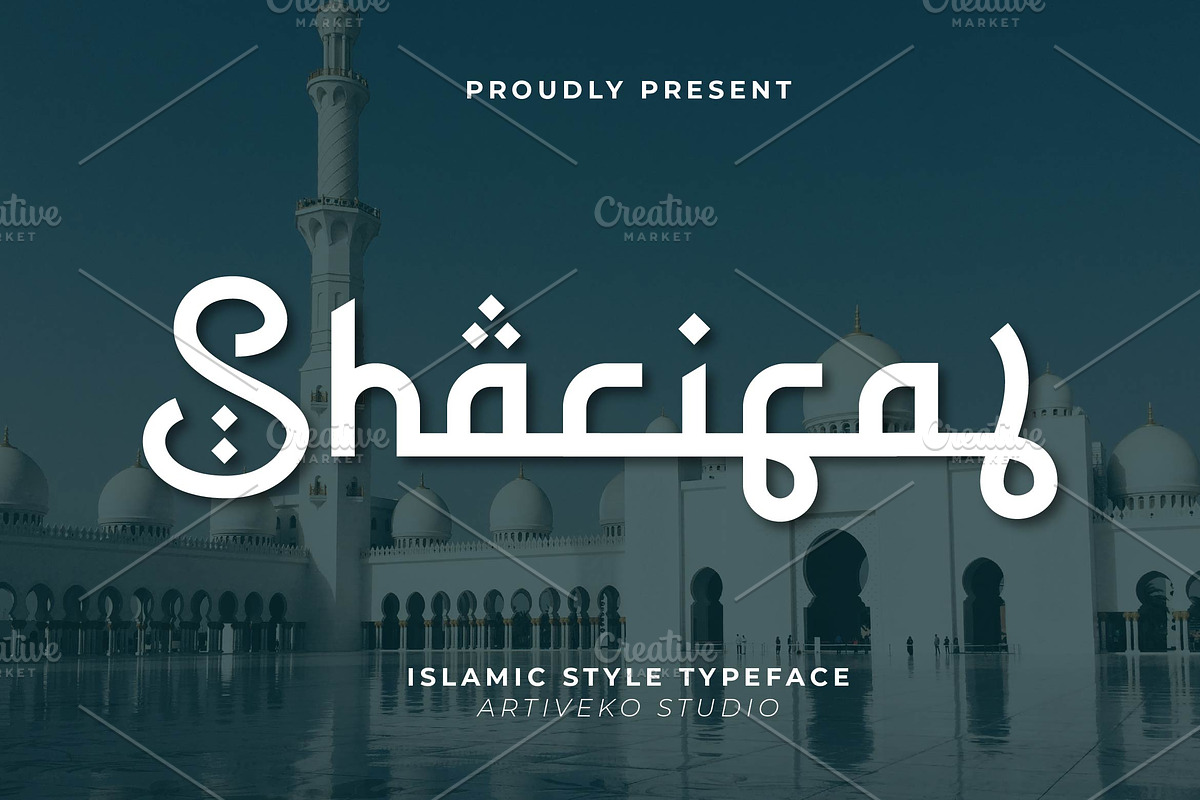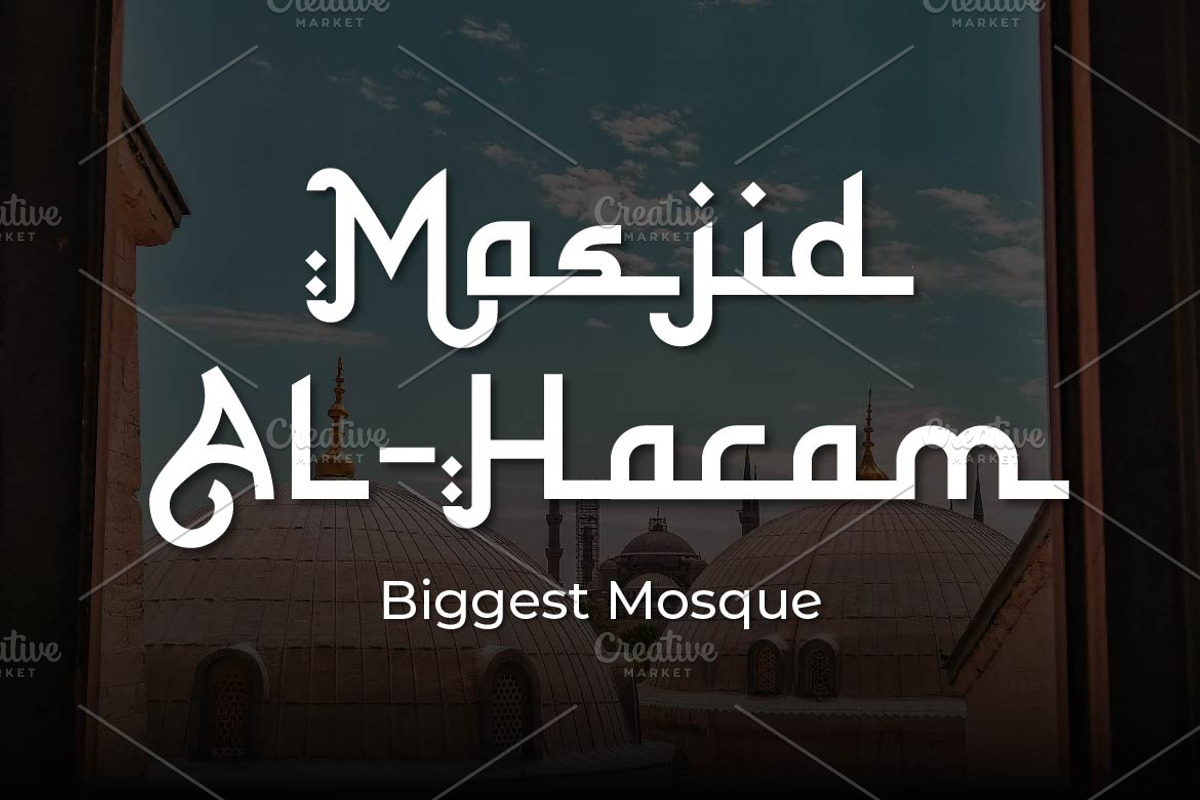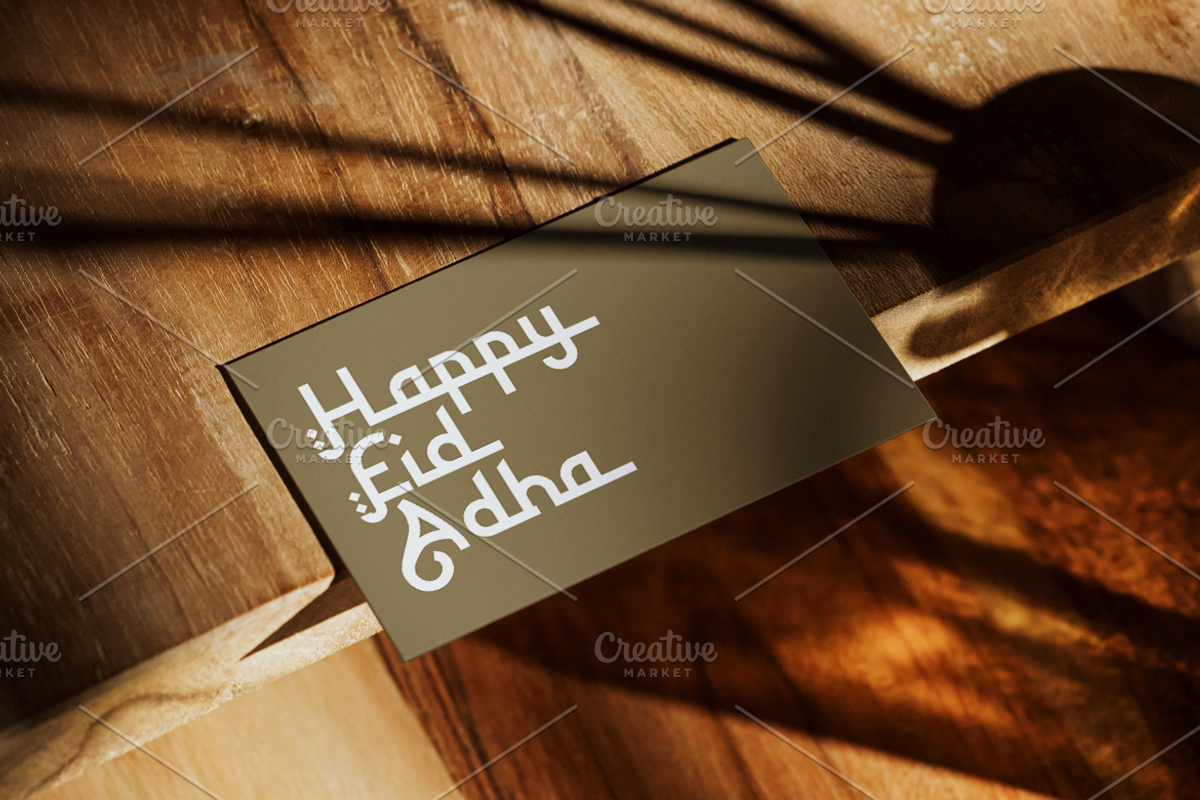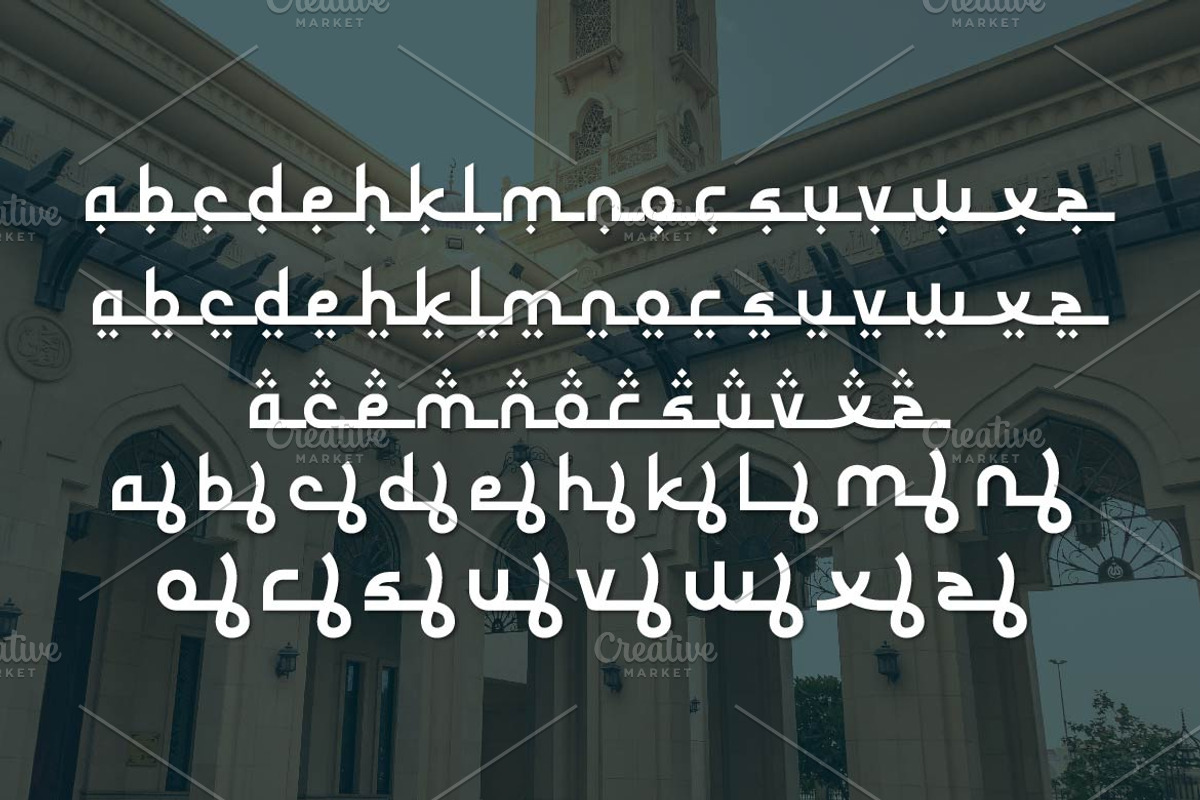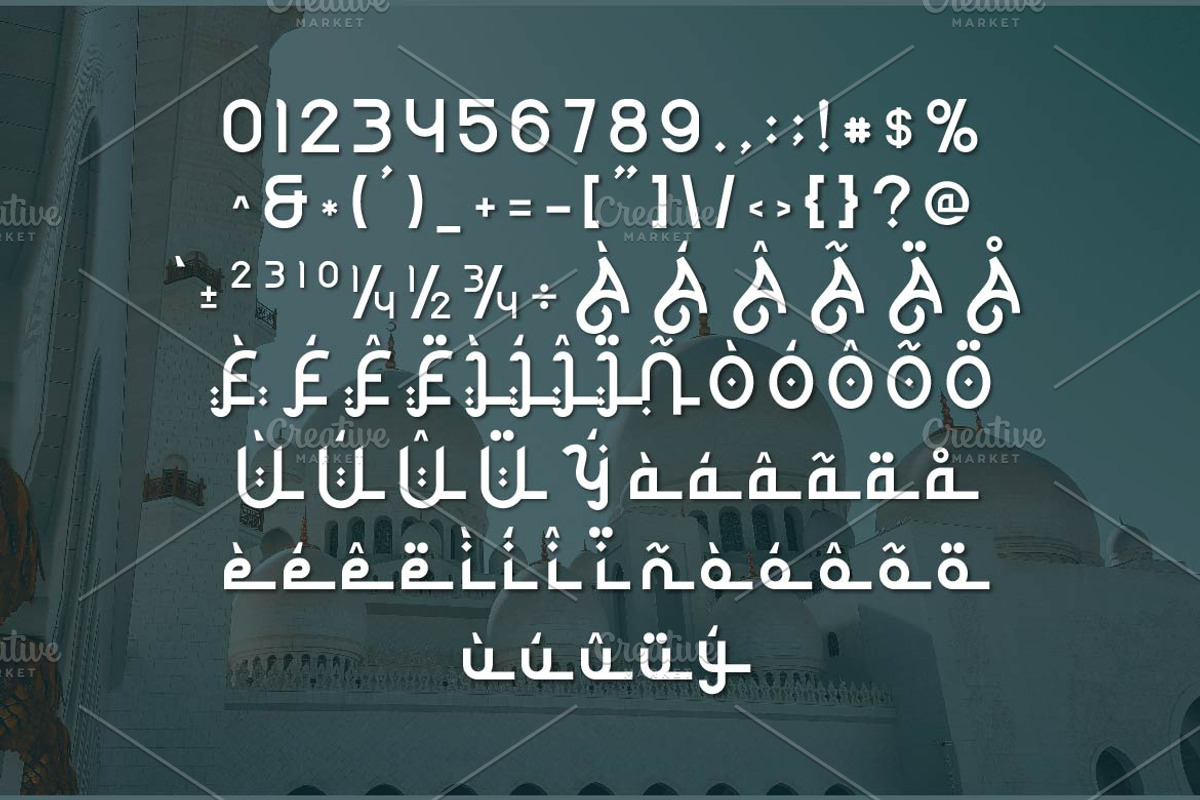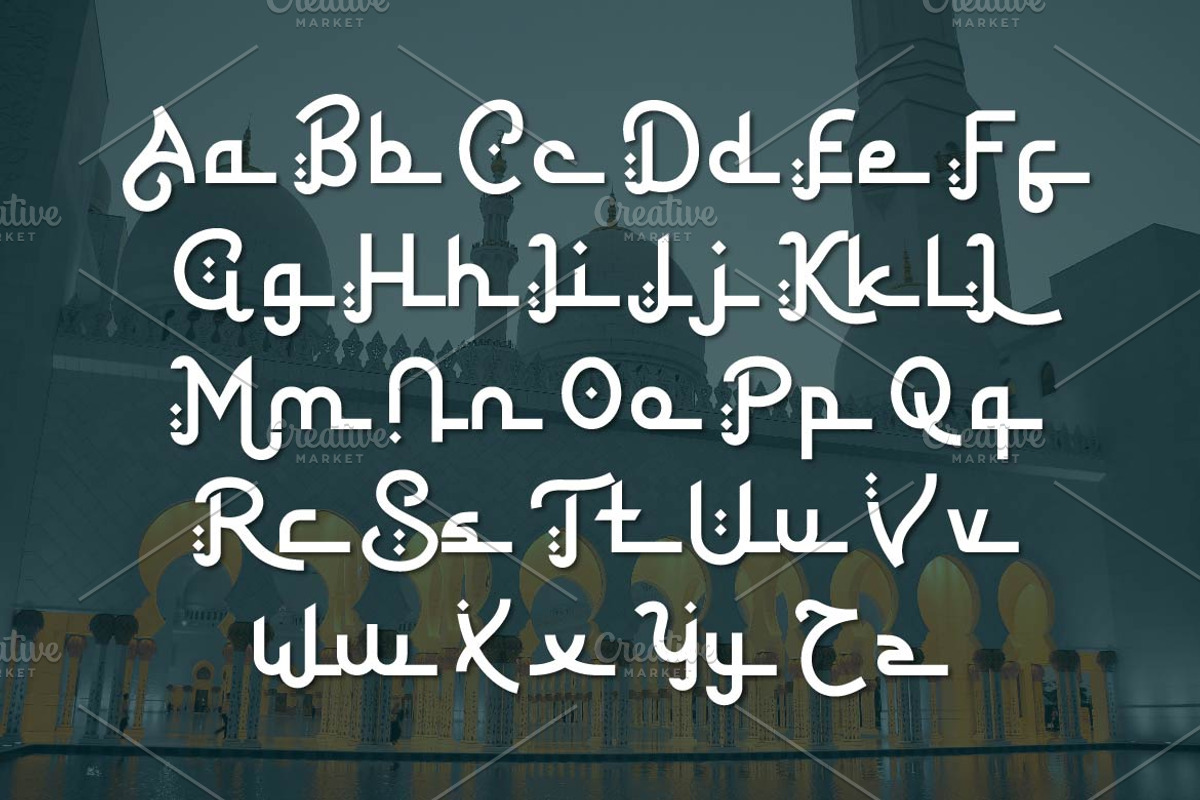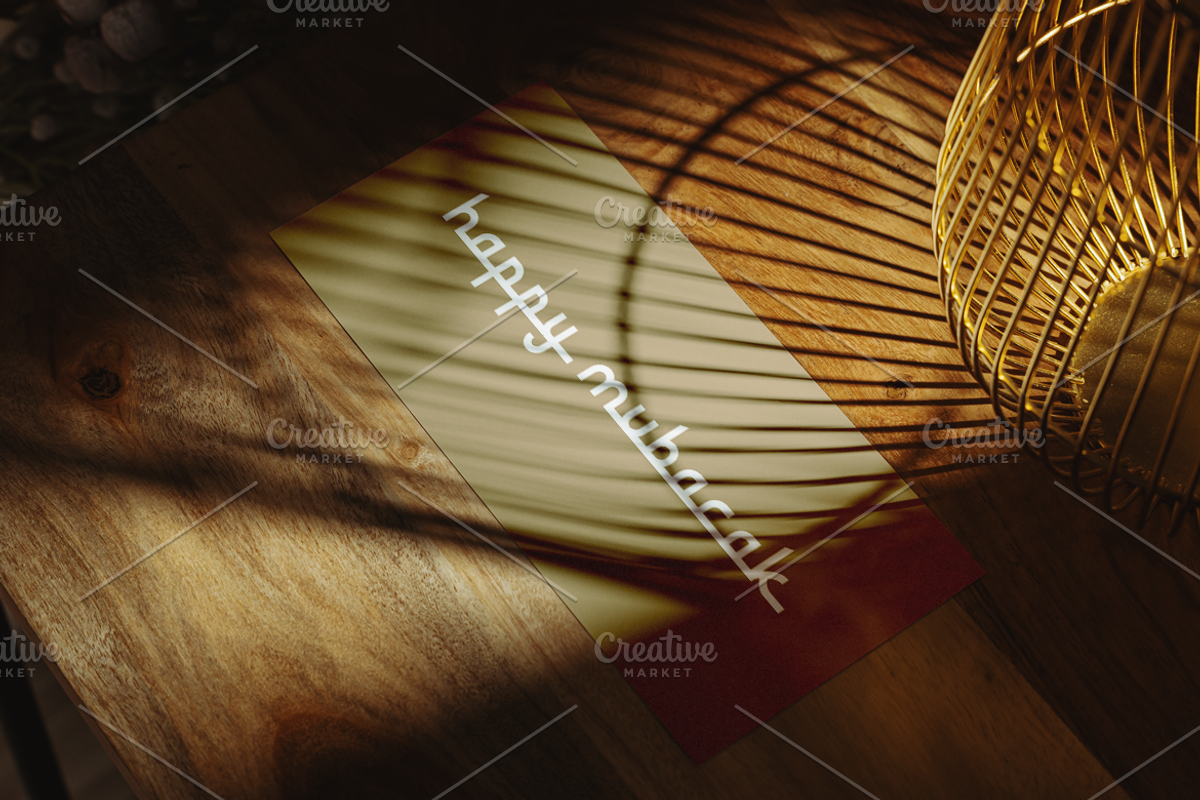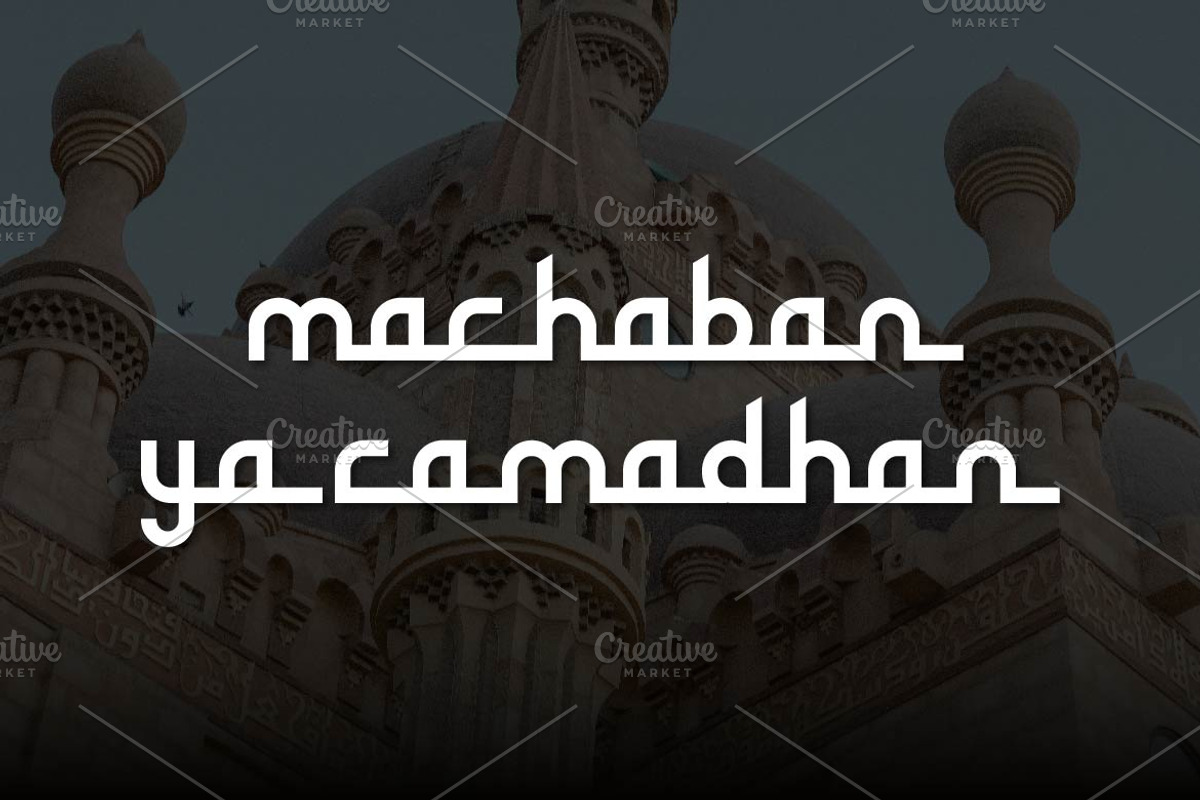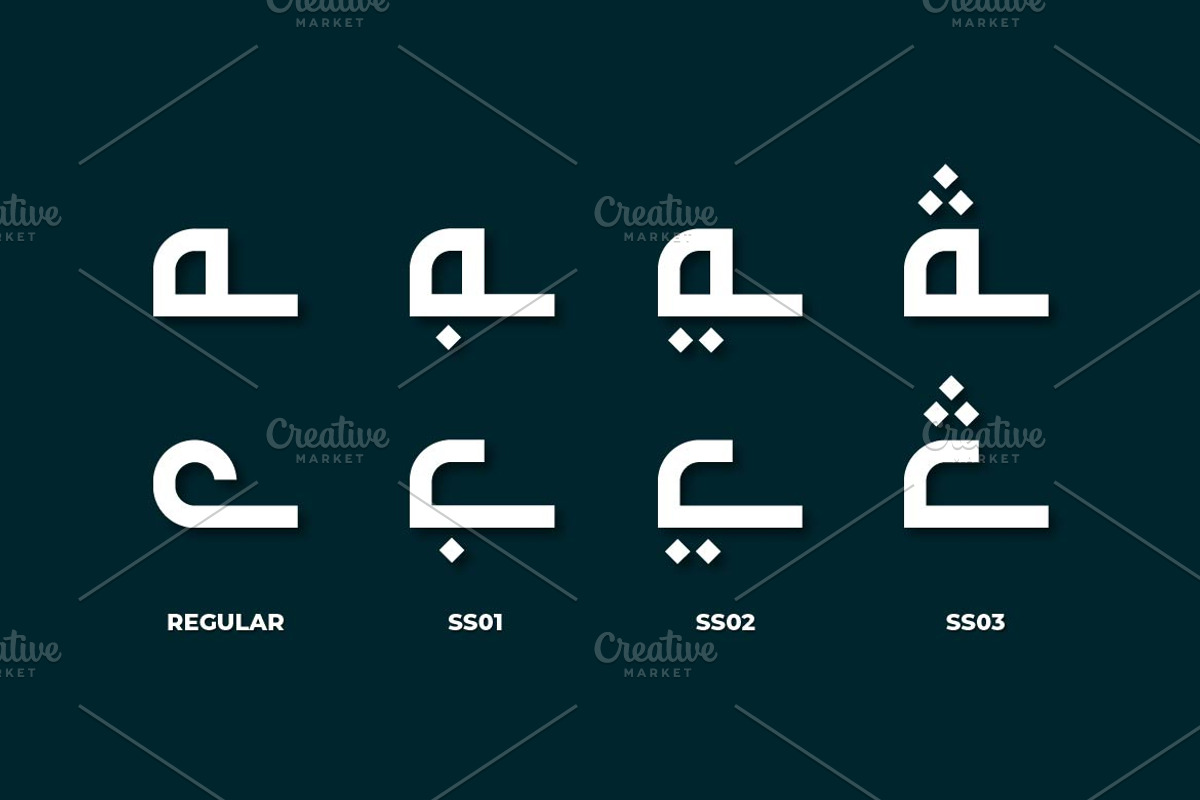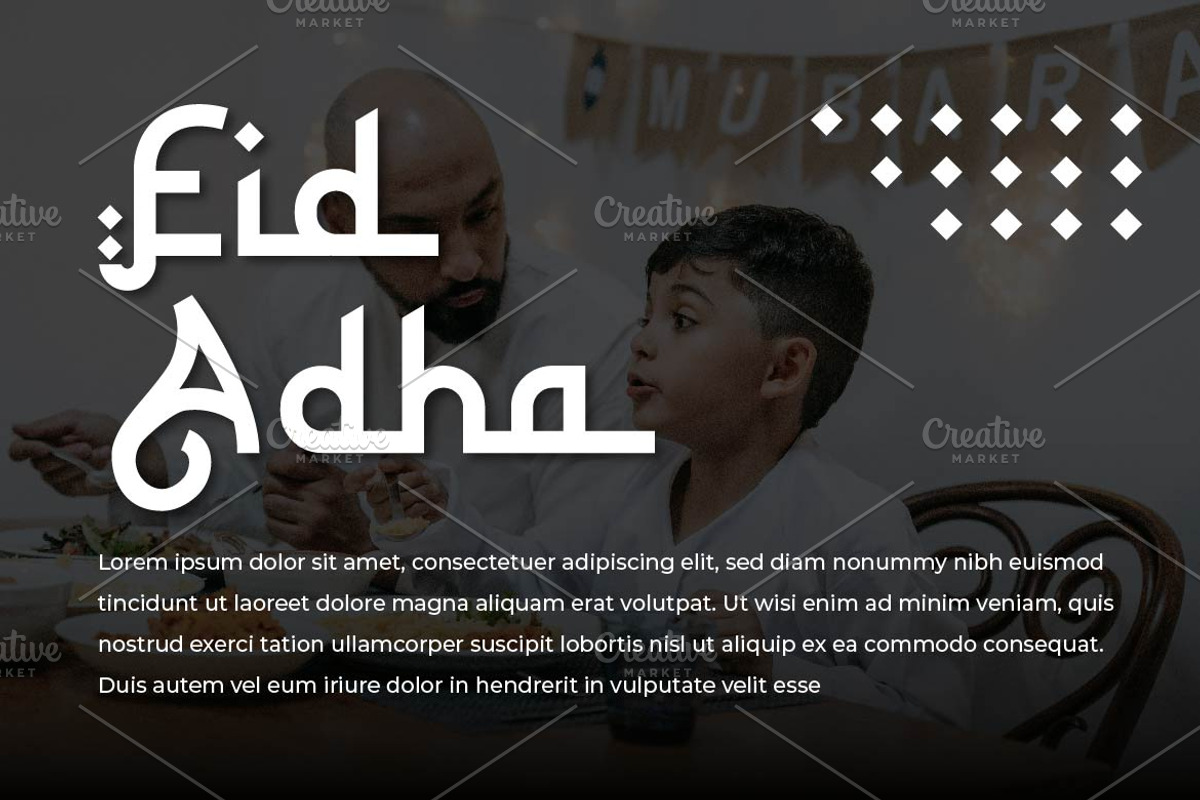
Sharifa Ramadhan Theme Font
Sharifa is a beautifully crafted Ramadhan-themed font designed with elegant curves and a spiritual touch to capture the essence of the holy month. Perfect for Islamic invitations, greeting cards, branding, and festive designs, Sharifa blends traditional and modern elements for a timeless aesthetic. Featuring multilingual support, ligatures, and alternates, this versatile typeface brings warmth and cultural richness, making it an ideal choice for projects that celebrate Ramadhan and Islamic heritage.